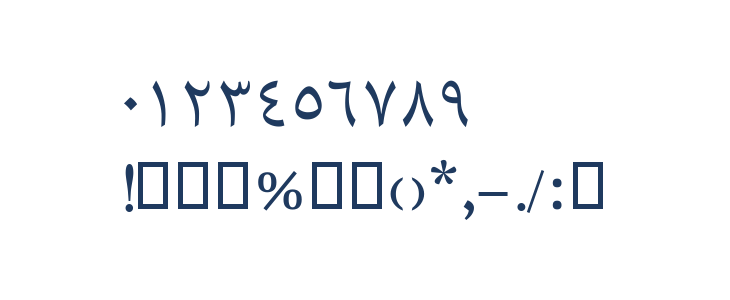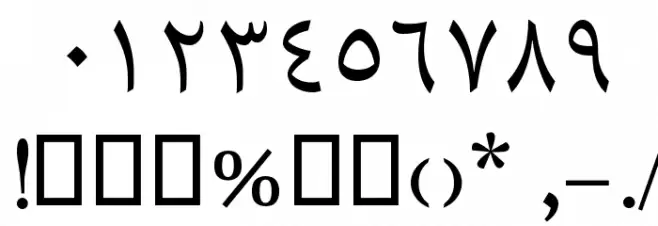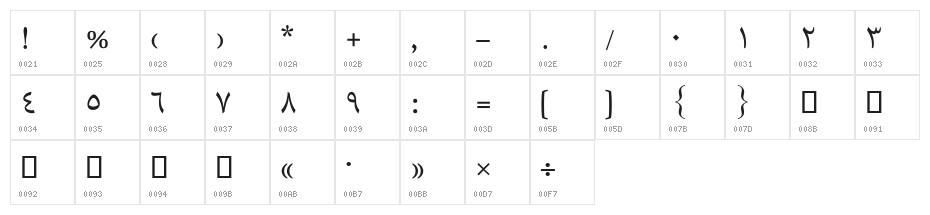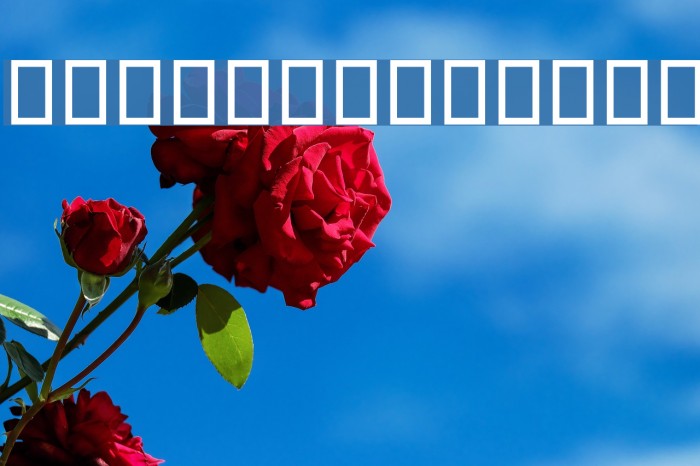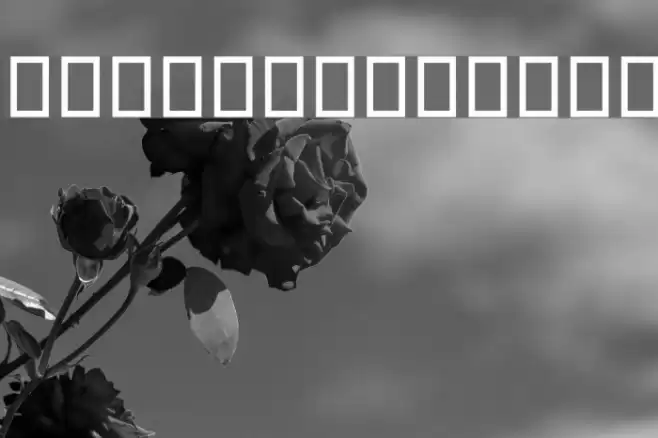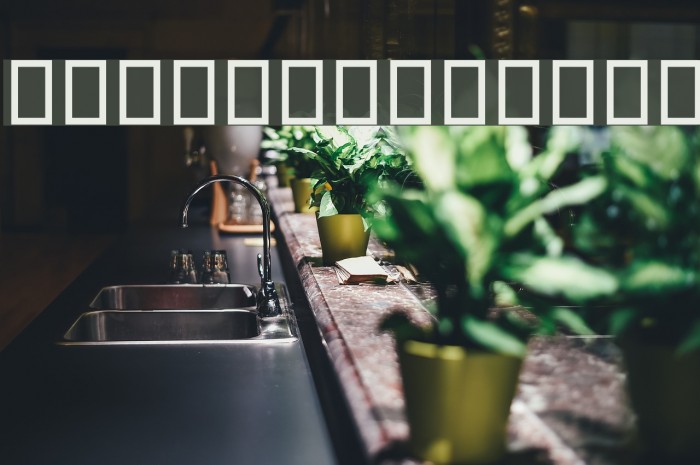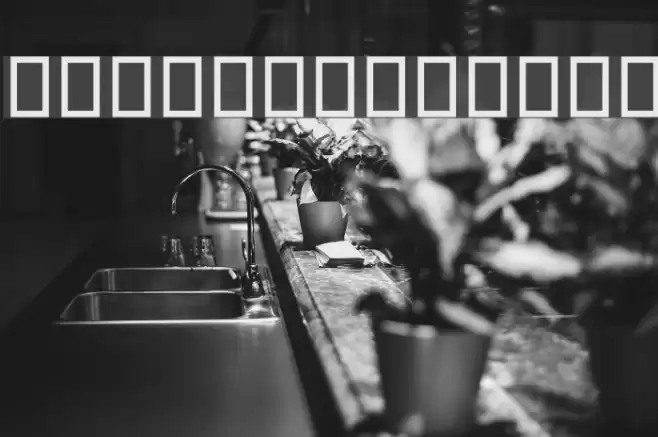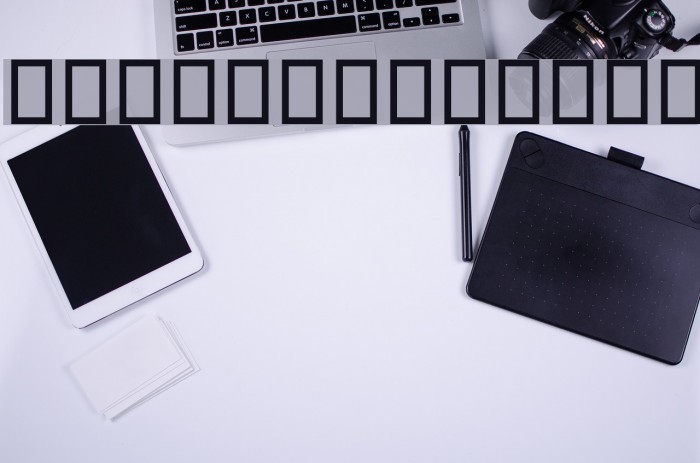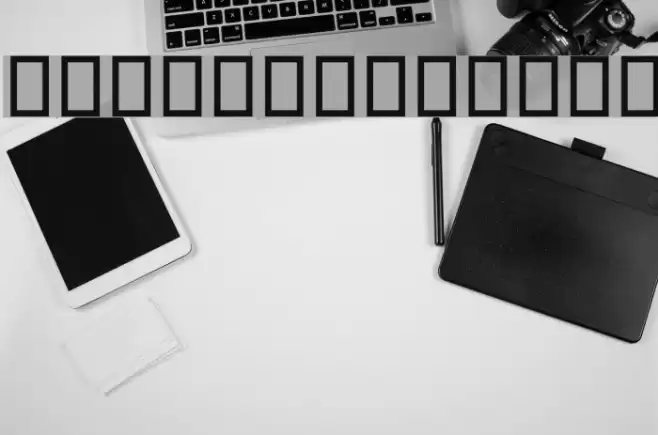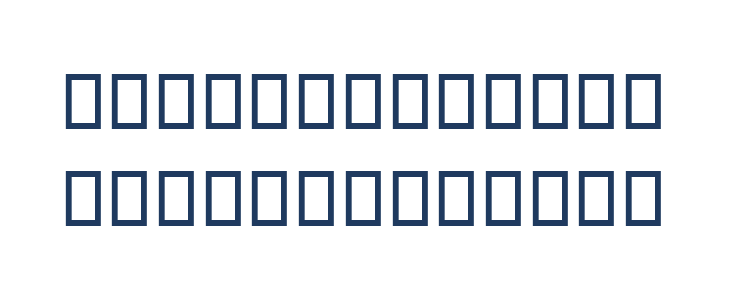
Yunos Font
Yunos Description
This font features a unique and artistic style with a calligraphic influence, characterized by its flowing and elegant curves. The numerals are particularly distinctive, with a fluid and dynamic appearance that suggests movement. The overall design is both sophisticated and playful, making it suitable for creative and expressive projects. The special characters maintain the same artistic flair, adding a cohesive look to the entire set. This font is perfect for projects that require a touch of elegance and creativity.
| Overall Style | Elegant and Artistic |
| Use Case | Logos, Invitations, Artistic Designs |
| Proposed Projects | Ideal for wedding invitations, artistic posters, branding for luxury products, and creative design projects. |